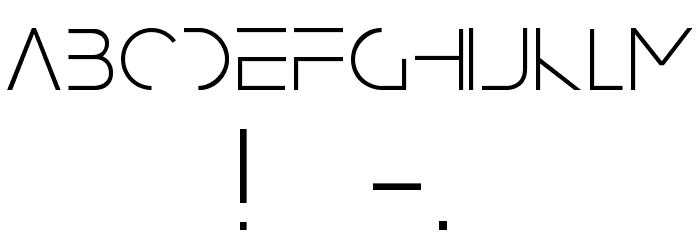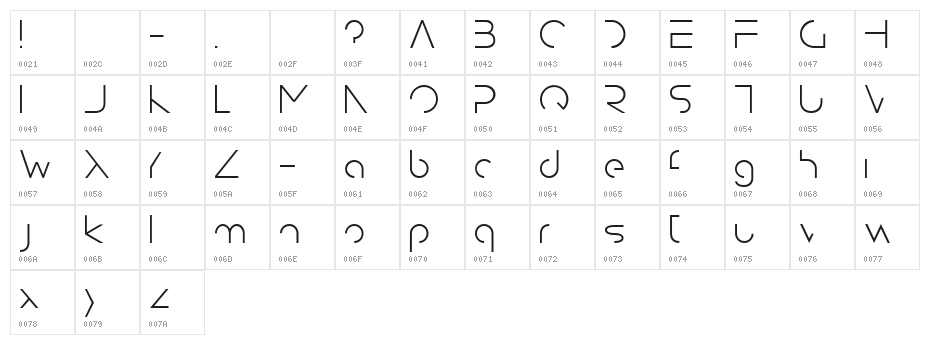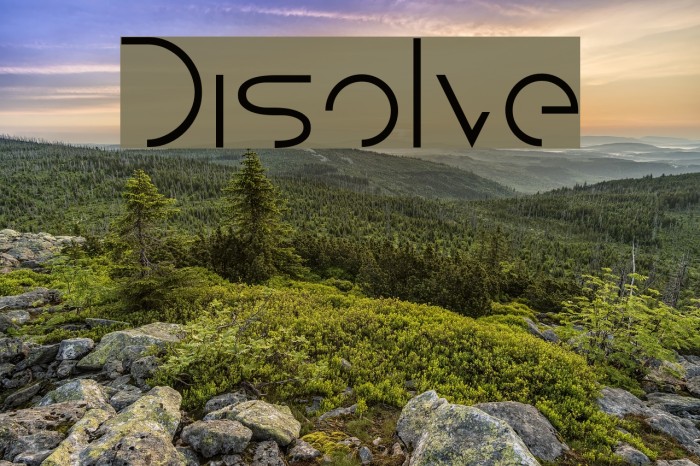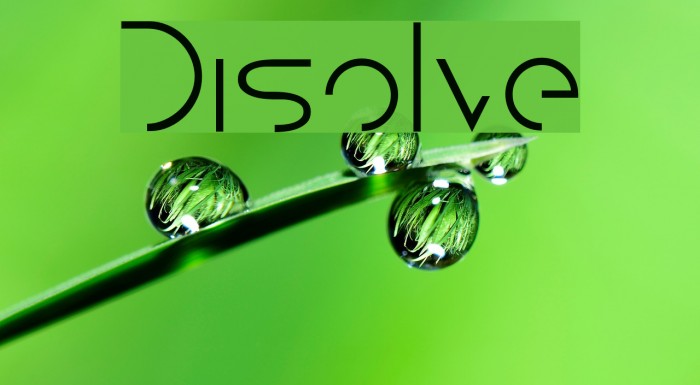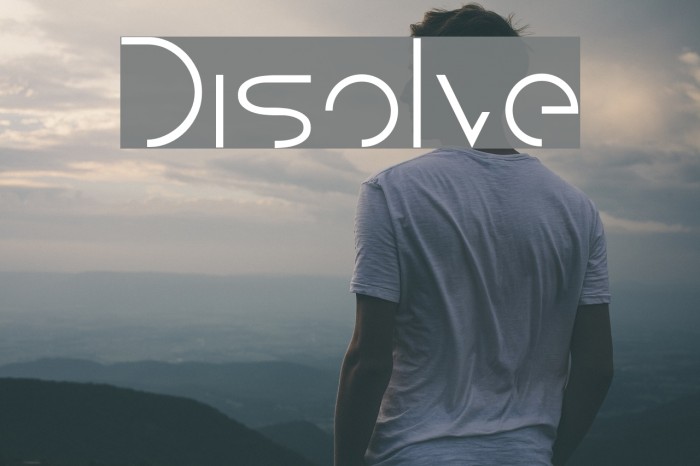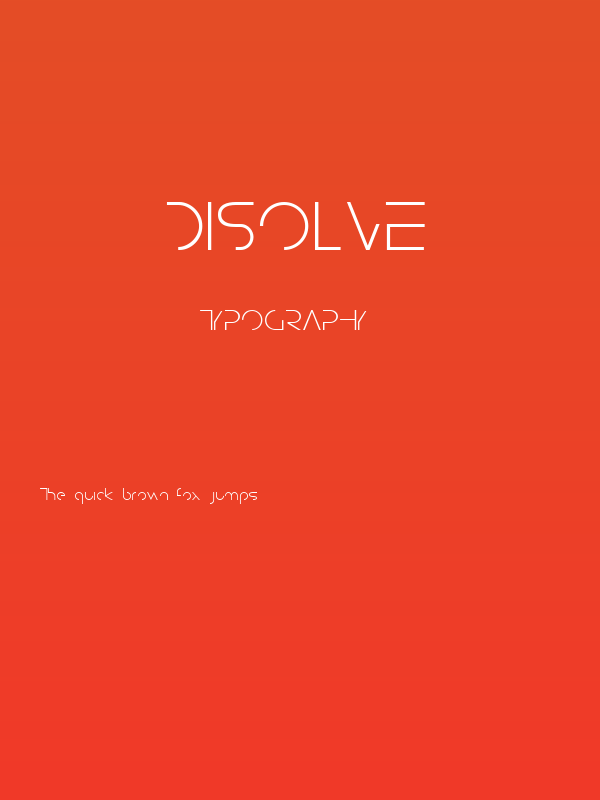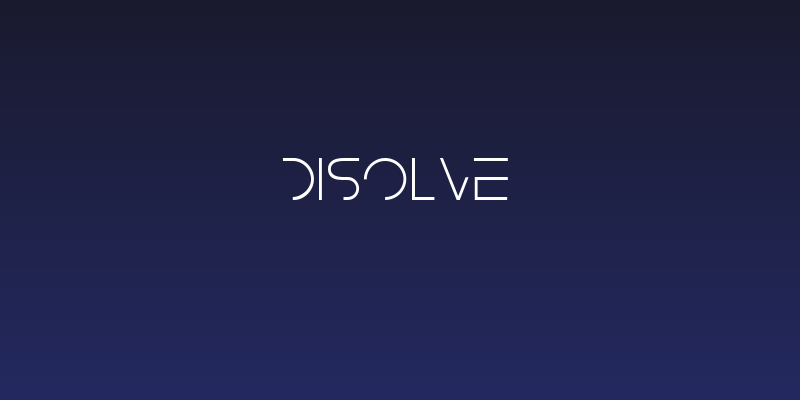
Disolve Font
Disolve Description
This font features a modern and geometric design with clean lines and a futuristic aesthetic. The characters are composed of simple, straight strokes and curves, creating a minimalist and sleek appearance. The uppercase and lowercase letters share a consistent style, with a focus on symmetry and balance. The font's unique structure gives it a distinctive look, making it suitable for contemporary and tech-oriented projects. The special characters maintain the same geometric style, ensuring uniformity across all glyphs.
| Use Case | Logos, Headlines, Digital interfaces |
| Proposed Projects | Ideal for tech branding, modern advertising, digital interfaces, and futuristic designs. |